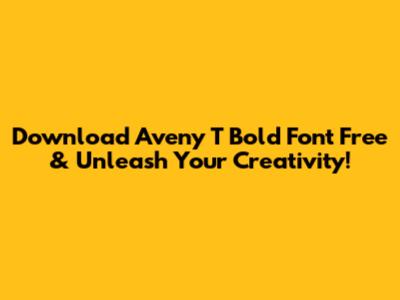
Download Aveny T Bold Font Free & Unleash Your Creativity!
Hey guys! Are you on the hunt for a super cool and versatile font that can take your designs to the next level? Look no further, because we're diving headfirst into the world of the Aveny T Bold font, and the best part? You can totally download it for free! This font is a real gem, perfect for everything from eye-catching headlines to stylish body text. So, buckle up, because we're about to explore everything you need to know about the Aveny T Bold font, including how to grab it for free and how to make the most of it in your projects. Let's get started, shall we?
What Makes Aveny T Bold Font So Special?
Okay, so what's the big deal about Aveny T Bold? Why should you even care about adding this font to your collection? Well, first off, it's a bold and modern sans-serif font that's designed to grab attention. Its clean lines and strong presence make it ideal for a wide range of uses. Whether you're working on a website, designing a logo, creating marketing materials, or just sprucing up your social media posts, Aveny T Bold can really make your text pop. It has a fantastic readability, meaning it's easy on the eyes, even in larger blocks of text, which is super important for your readers. The bold weight of the font ensures that your message is clear and impactful, immediately drawing the reader's attention to what you want them to see. Think about those stunning headlines that immediately capture your interest – Aveny T Bold can help you achieve that same effect! Plus, it's incredibly versatile. It's not just a one-trick pony; this font can adapt to different styles and designs, making it a valuable asset for any designer or anyone who loves to play around with fonts. You can use it in a minimalist design or in a more complex project; Aveny T Bold always delivers.
But the magic doesn't stop there. Because Aveny T Bold is a sans-serif font, it has a contemporary feel, perfect for projects that need a touch of modernity and simplicity. This font's straightforward and clear style makes it a great choice for various projects. And the fact that it's easily readable means you can use it in a wide variety of ways, which is always a bonus. It’s also important to note that the font family usually includes different weights, so you can often find variations of Aveny T beyond just the bold version. This can allow you even more control over the look and feel of your designs. So, if you are looking for a font that is both functional and stylish, Aveny T Bold is definitely a strong contender. It's the perfect combo of aesthetics and usability, and it's a fantastic font to keep in your toolkit. So, whether you are a seasoned designer or a total beginner, understanding the unique features and versatility of Aveny T Bold can dramatically enhance your projects and help you create visually stunning content. Trust me; this font is a real game-changer!
Using Aveny T Bold Font in Your Design Projects
Okay, now that you've got Aveny T Bold downloaded and installed, the real fun begins! This font is a powerhouse for creating visually striking designs, and here are some ideas to get you started. First off, think about using it for attention-grabbing headlines. The bold weight makes it ideal for website headers, social media graphics, and poster titles. Make your main message really stand out! Try it with different sizes and colors to experiment and create different effects.
Next, consider using it for body text in smaller blocks. While it's best suited for headings, you can use it for shorter paragraphs where you want to add a bit of emphasis. Pair it with a lighter font for body text to create a balanced look. The contrast between the bold headline and the standard text will help guide the reader's eye and create visual interest. For logo designs, Aveny T Bold can give your brand a modern and clean aesthetic. Its strong lines and clear structure make it easy to remember and recognize. Try experimenting with different letter combinations, and see how the font looks against various backgrounds and colors.
When creating marketing materials, Aveny T Bold is your friend. Use it for call-to-action buttons, promotional text, and any area where you want to draw the viewer's attention. Remember, bold fonts are great for creating a sense of urgency. In web design, incorporate Aveny T Bold for navigation menus, buttons, and headings. This will help make your website look more organized and user-friendly. Just make sure the font is legible at different sizes and on different devices. In social media graphics, Aveny T Bold is excellent for creating visually appealing posts. Use it for quotes, announcements, and any text that needs to stand out in the busy social media feed.
Pro Tip: Combine Aveny T Bold with other fonts to create a diverse and exciting visual experience. A great combination can be found by pairing it with a lighter sans-serif font for body text or a serif font for a touch of elegance. Be creative and let your imagination flow!
Tips and Tricks for Working with Aveny T Bold Font
Alright, let's get into some handy tips and tricks to help you get the most out of Aveny T Bold. First, always ensure the font is legible at the size you're using it. Sometimes, a font that looks great in a large size can be hard to read when it’s much smaller. Test it out to make sure it works well in all the sizes you're likely to use. Consider using kerning and tracking to fine-tune the spacing between letters. Kerning adjusts the space between specific letter pairs, while tracking adjusts the overall spacing across a word or phrase. These small adjustments can dramatically improve the readability and appearance of your text.